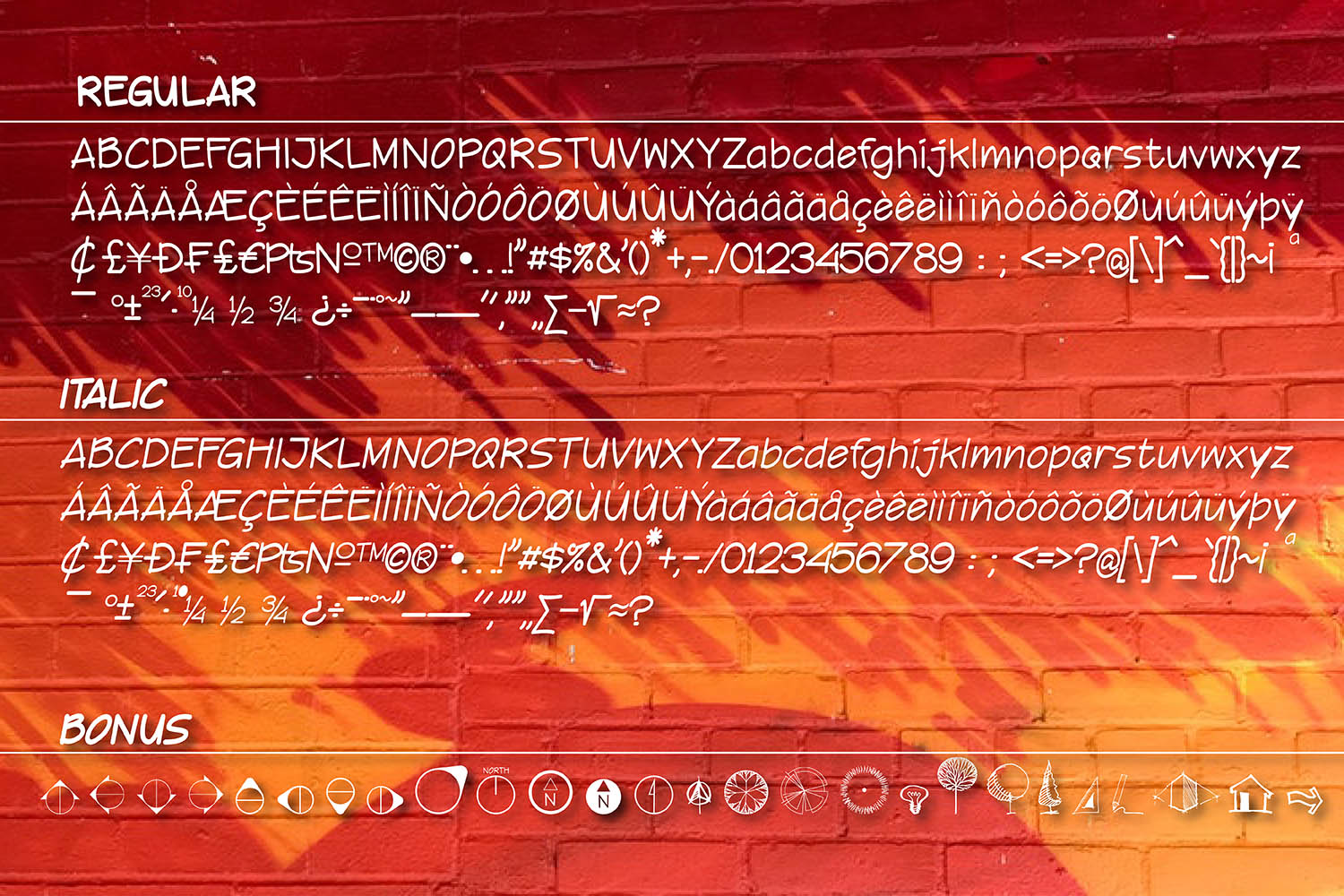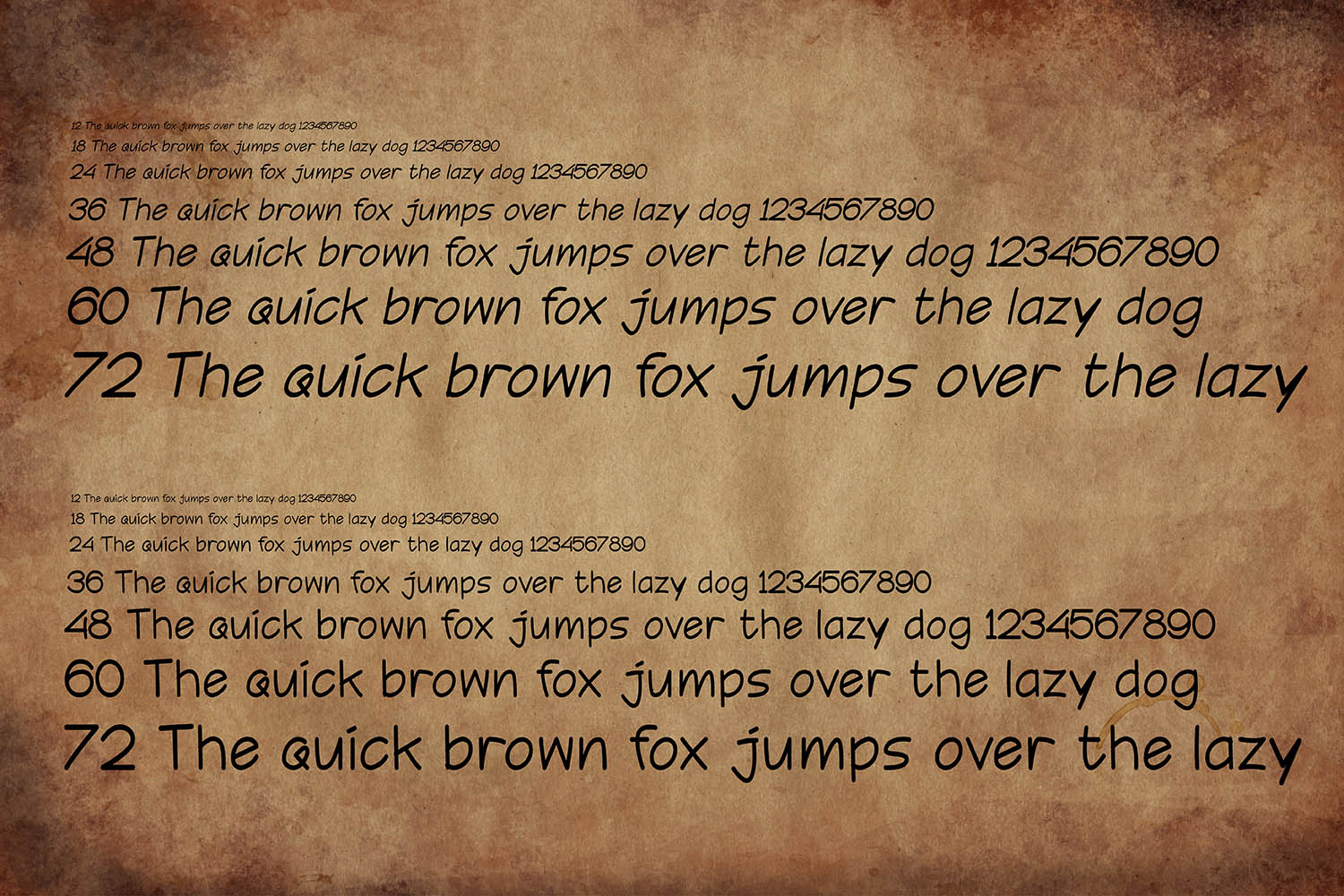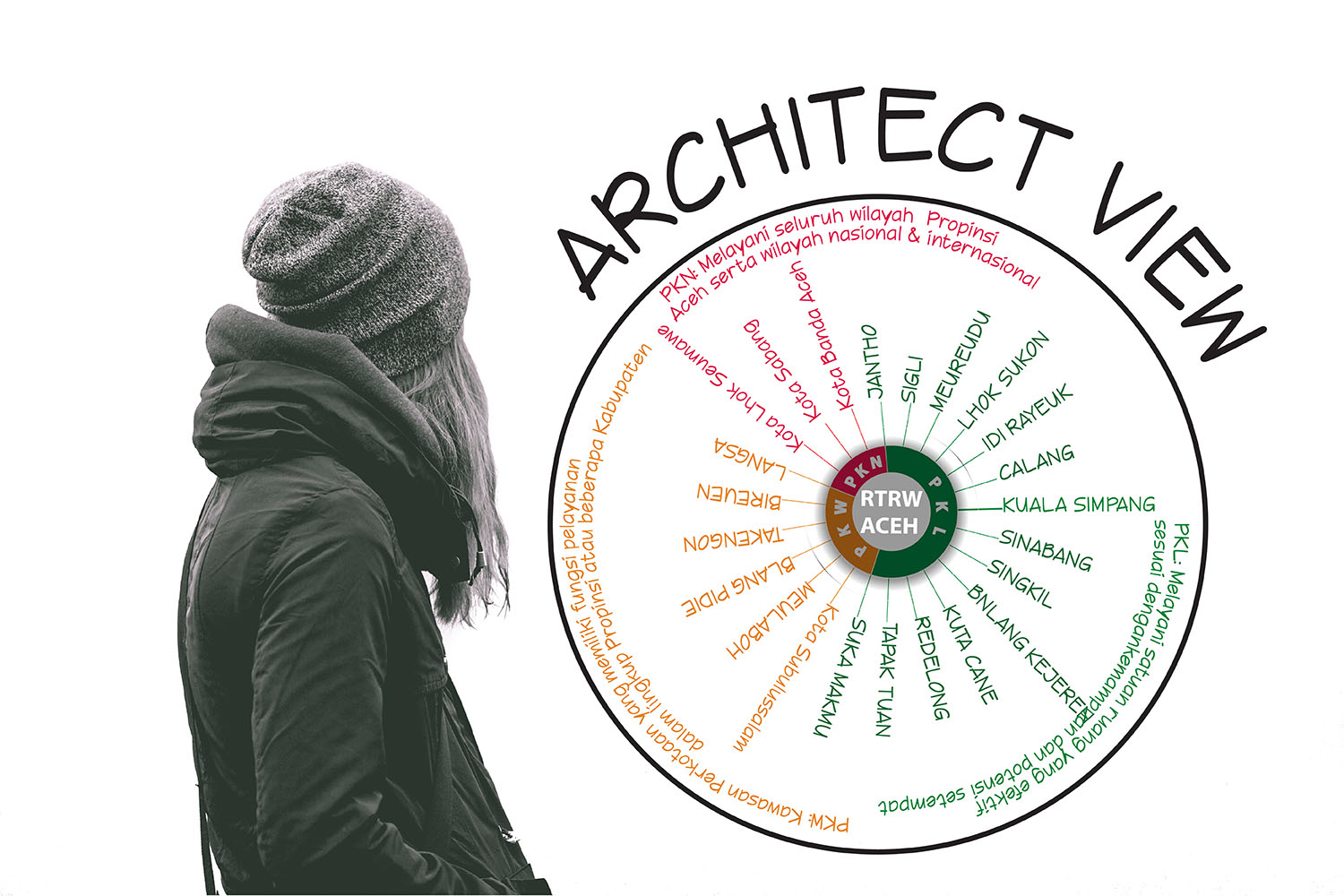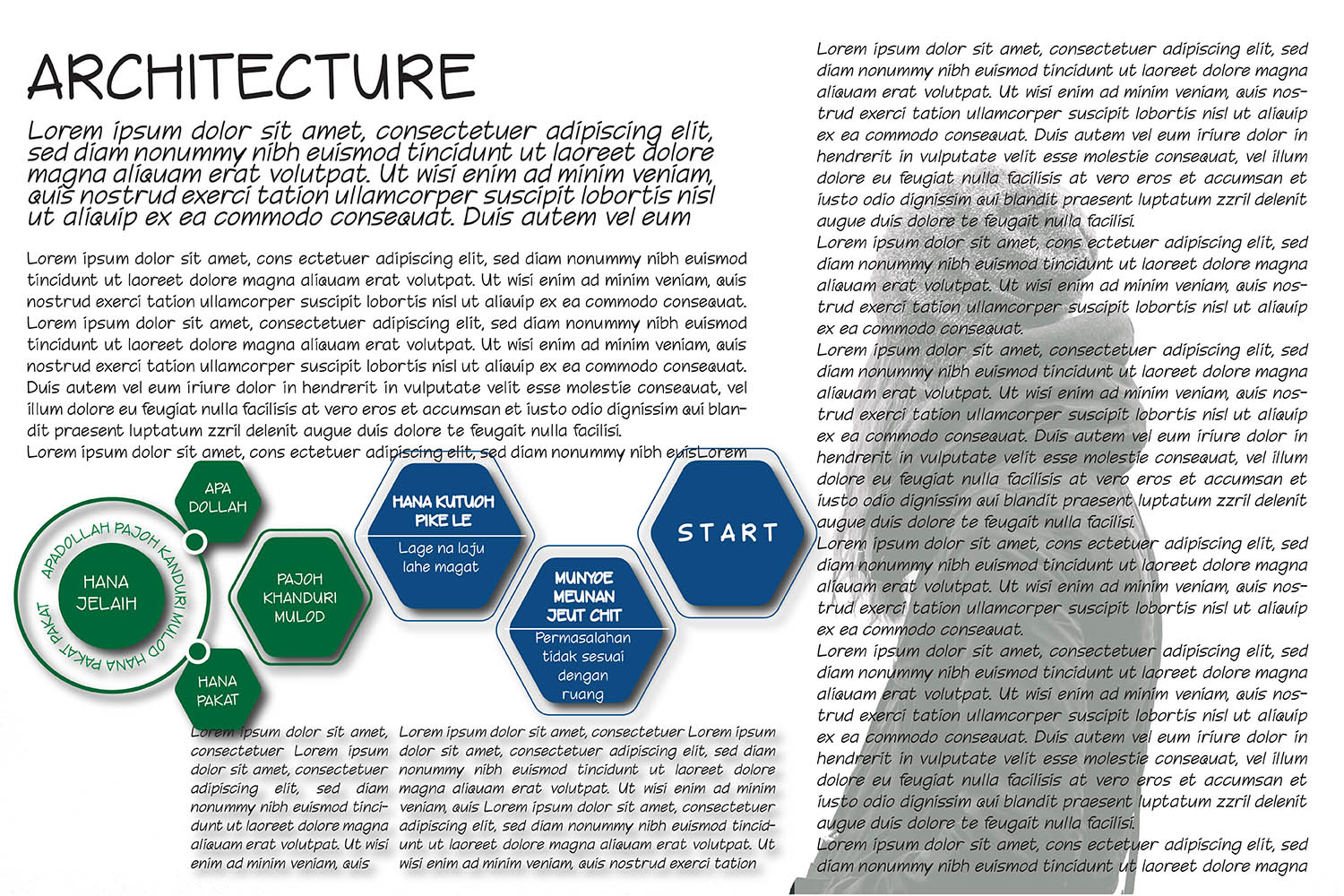
Introducing Architecture Font: A Beautifully Simple Freehand Font
Are you a designer or crafter looking for a font that is both friendly and clean? Look no further than Architecture Font, a beautifully simple freehand font that is perfect for a wide range of projects. With its sans serif and handwritten style, this font is sure to add a touch of elegance and sophistication to any design.
What Makes Architecture Font So Special?
Architecture Font is a unique and versatile font that is characterized by its legibility and monoline structure. The font’s clean and simple design makes it easy to read and understand, even at small sizes. This makes it perfect for use in a variety of projects, from headings and titles to body text and more.
Key Features of Architecture Font
- Freehand font: Architecture Font is a freehand font, which means that it has a personal and human touch that is often lacking in more traditional fonts.
- Sans serif: The font’s sans serif design makes it clean and modern, perfect for use in a wide range of projects.
- Handwritten style: The font’s handwritten style gives it a friendly and approachable feel that is perfect for use in designs where you want to connect with your audience.
- Monoline structure: The font’s monoline structure makes it easy to read and understand, even at small sizes.
- Legibility: The font’s clean and simple design makes it highly legible, even in small sizes.
Uses for Architecture Font
Architecture Font is a versatile font that can be used in a wide range of projects, including:
- Headings and titles: The font’s clean and simple design makes it perfect for use in headings and titles.
- Body text: The font’s legibility and monoline structure make it suitable for use in body text.
- Signage: The font’s clean and simple design makes it perfect for use in signage, such as directional signs and information boards.
- Branding: The font’s friendly and approachable feel makes it perfect for use in branding, such as logos and marketing materials.
- Crafting: The font’s handwritten style and monoline structure make it perfect for use in crafting projects, such as journaling and scrapbooking.
Why Choose Architecture Font?
There are many reasons why you might choose Architecture Font for your next project. Here are just a few:
- Unique and versatile: The font’s unique and versatile design makes it perfect for use in a wide range of projects.
- Easy to read: The font’s clean and simple design makes it easy to read and understand, even at small sizes.
- Highly legible: The font’s monoline structure and clean design make it highly legible, even in small sizes.
- Freehand style: The font’s freehand style gives it a personal and human touch that is often lacking in more traditional fonts.
Architecture Font is a beautifully simple freehand font that is perfect for a wide range of projects. With its clean and simple design, monoline structure, and handwritten style, this font is sure to add a touch of elegance and sophistication to any design. Whether you’re a designer or crafter, Architecture Font is a great choice for any project where you want to add a personal and human touch.
Tips for Using Architecture Font
- Use it for headings and titles: The font’s clean and simple design makes it perfect for use in headings and titles.
- Experiment with different sizes: The font’s legibility and monoline structure make it suitable for use in a wide range of sizes.
- Pair it with other fonts: The font’s unique and versatile design makes it a great choice for pairing with other fonts.